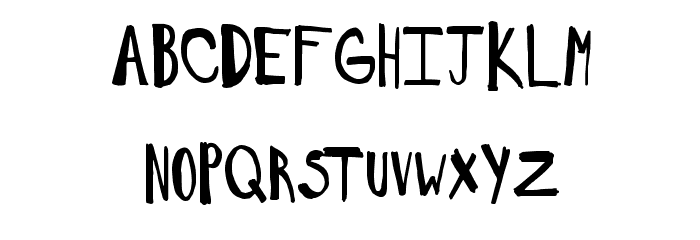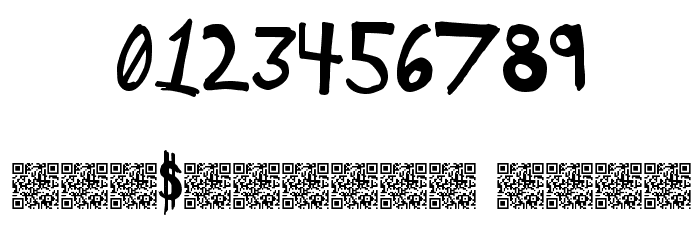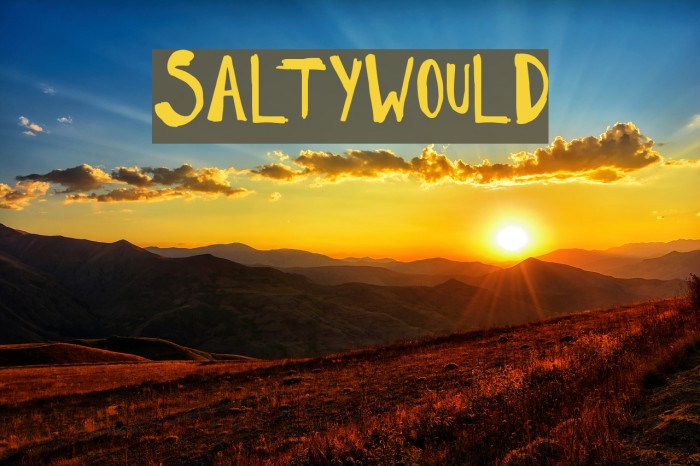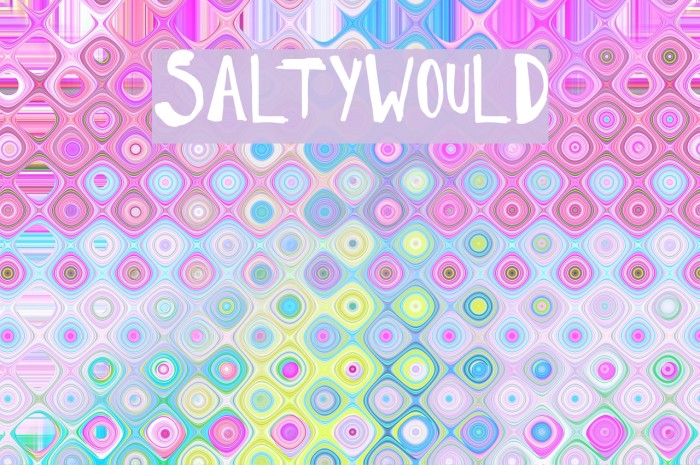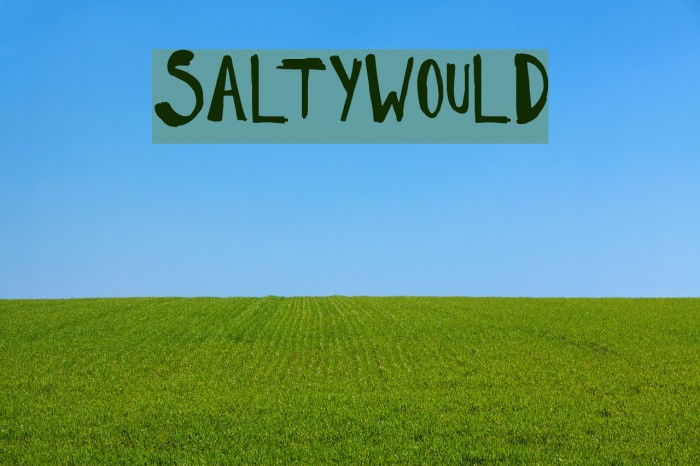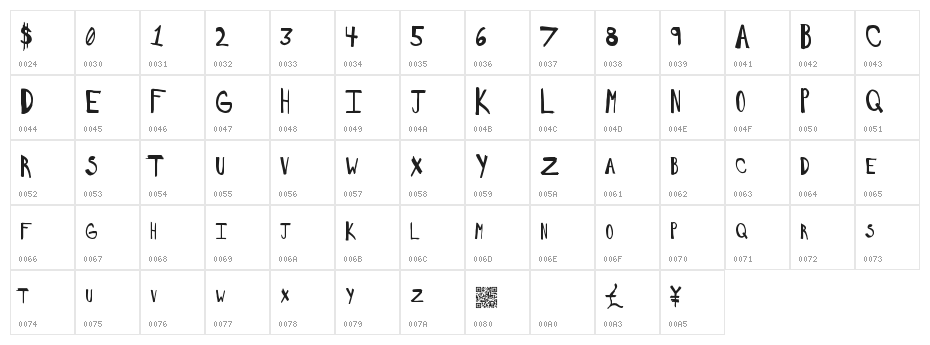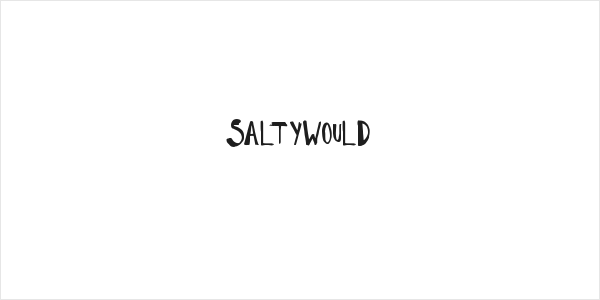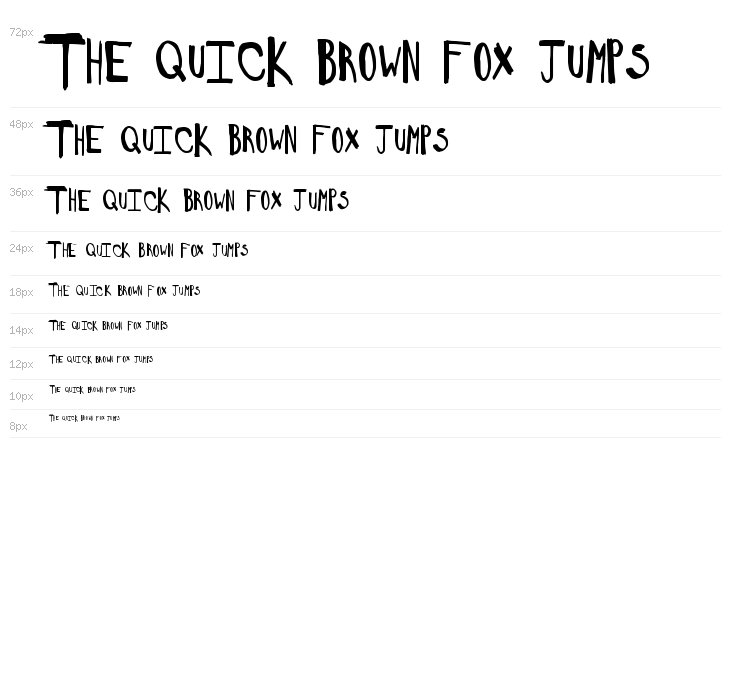
SaltyWould Font
This font exudes a playful and informal vibe, characterized by its uneven and quirky letterforms. The uppercase letters are bold and slightly irregular, giving a hand-drawn appearance that adds a personal touch to any design. The lowercase letters maintain this whimsical style, with varying stroke widths that enhance its casual aesthetic. Numbers and special characters follow the same playful design, making the font versatile for creative projects. Its unique style is perfect for projects that require a fun and approachable look, such as children's books, comic strips, or casual branding. The font's distinct personality makes it stand out, ensuring that any text set in this typeface will capture attention and convey a sense of creativity and spontaneity.
A playful, hand-drawn font with quirky, uneven letterforms and a casual vibe.
- Proposed Projects: Ideal for children's books, comic strips, casual branding, and creative projects.